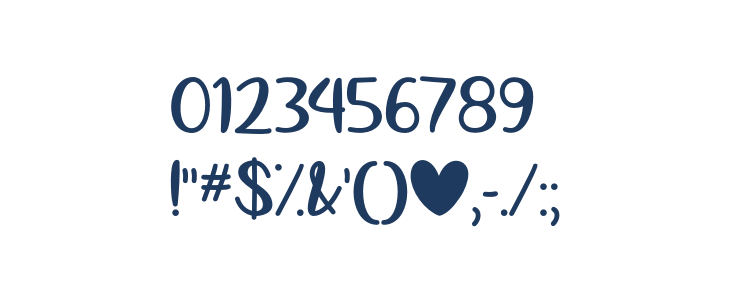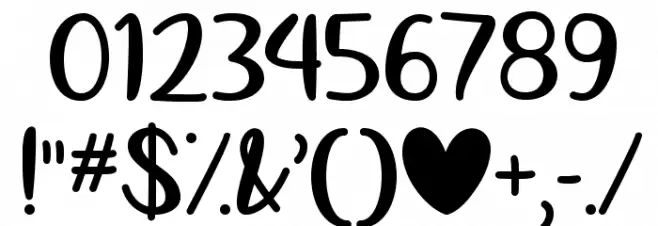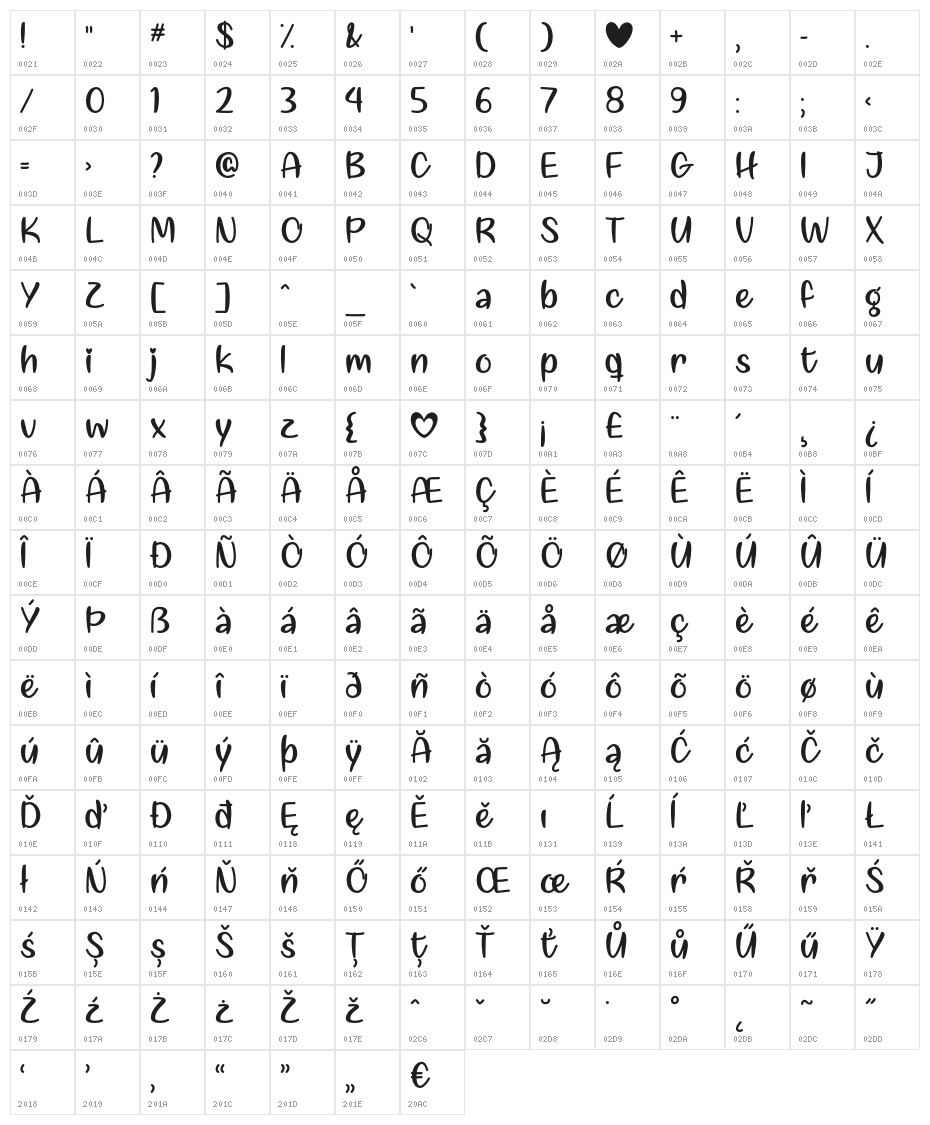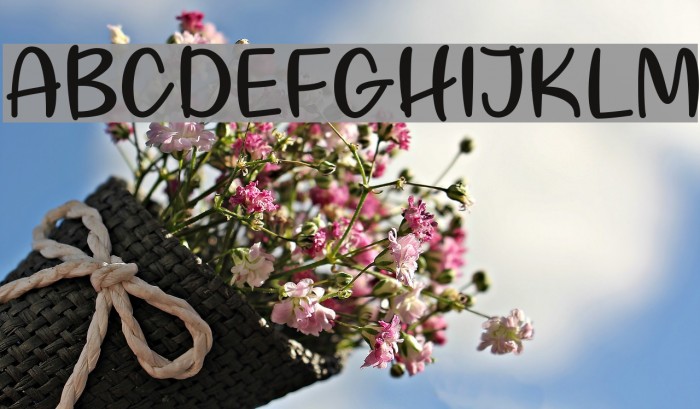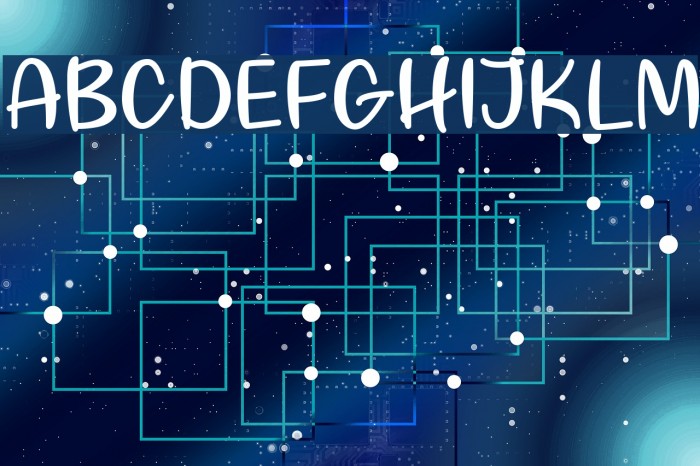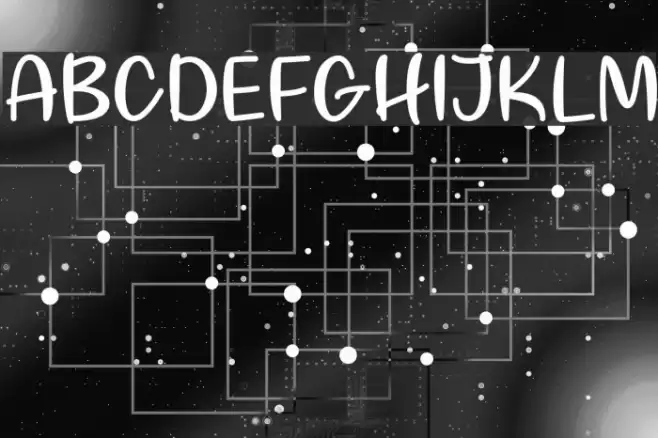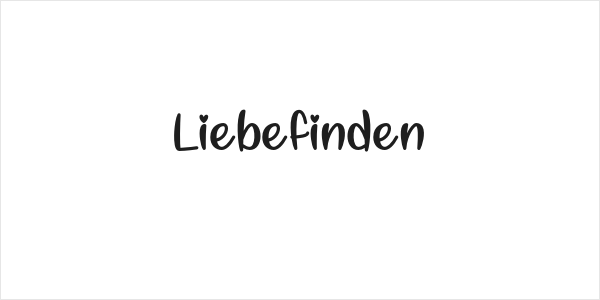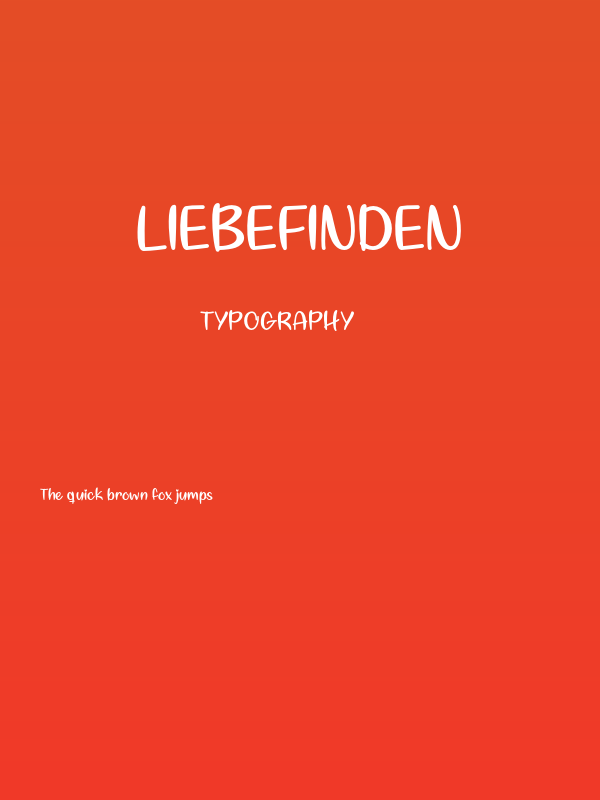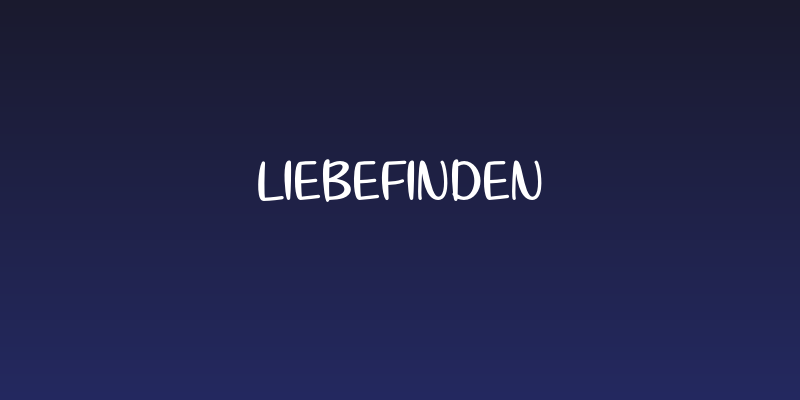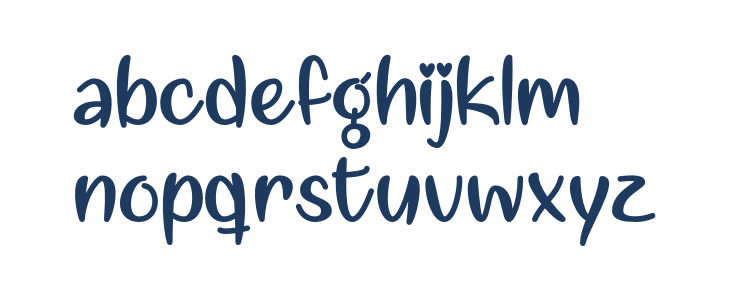
Liebefinden Font
Liebefinden Description
This playful and whimsical font features a handwritten style with smooth, rounded edges and a casual, friendly appearance. The uppercase letters are bold and slightly irregular, giving a sense of spontaneity and creativity. The lowercase letters maintain a consistent flow, with some characters featuring unique loops and curves that add to the font's charm. Numbers are equally bold and maintain the playful aesthetic, making them stand out. Special characters are creatively designed, with symbols like the heart and star adding a touch of fun and personality. Overall, this font exudes a lively and approachable vibe, perfect for projects that require a personal touch.
| Use Case | Logos, Headlines, Social Media |
| Proposed Projects | Ideal for greeting cards, children's books, playful branding, and social media graphics. |